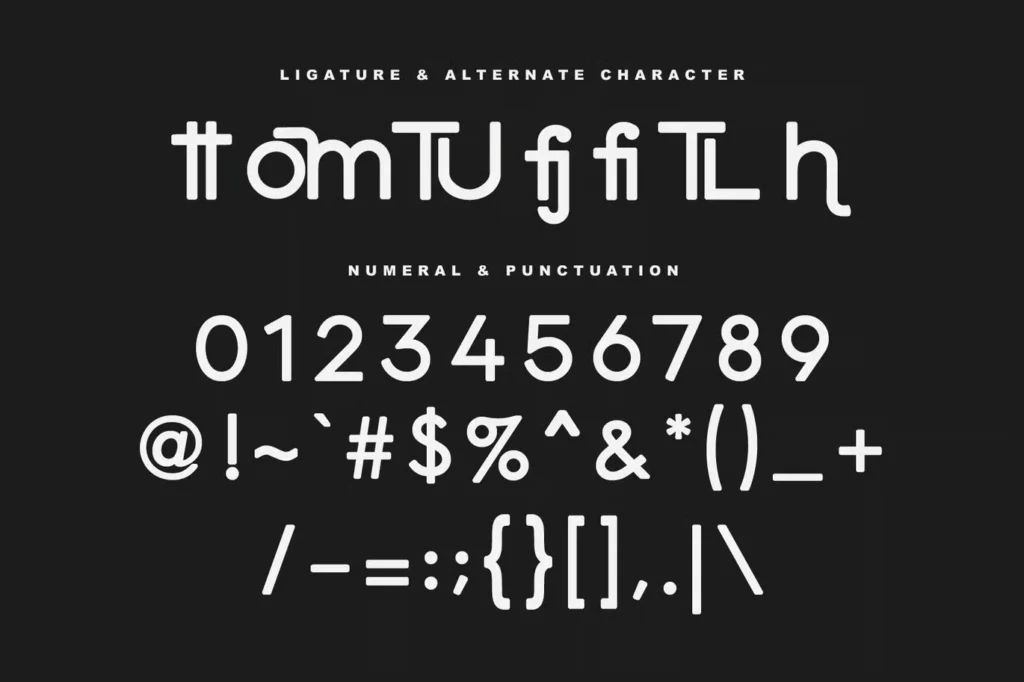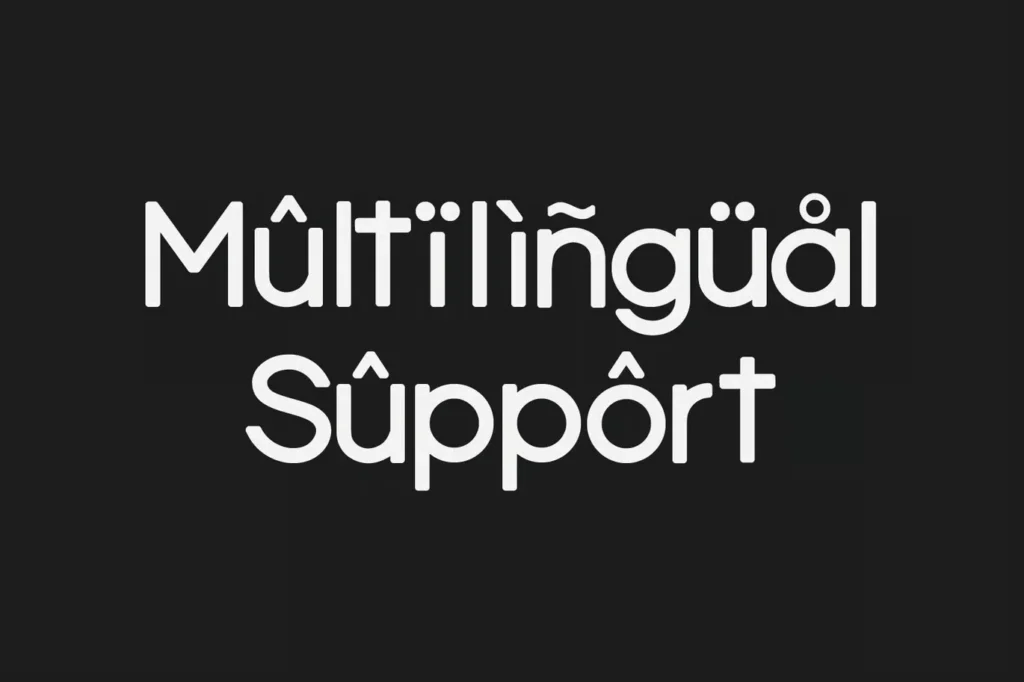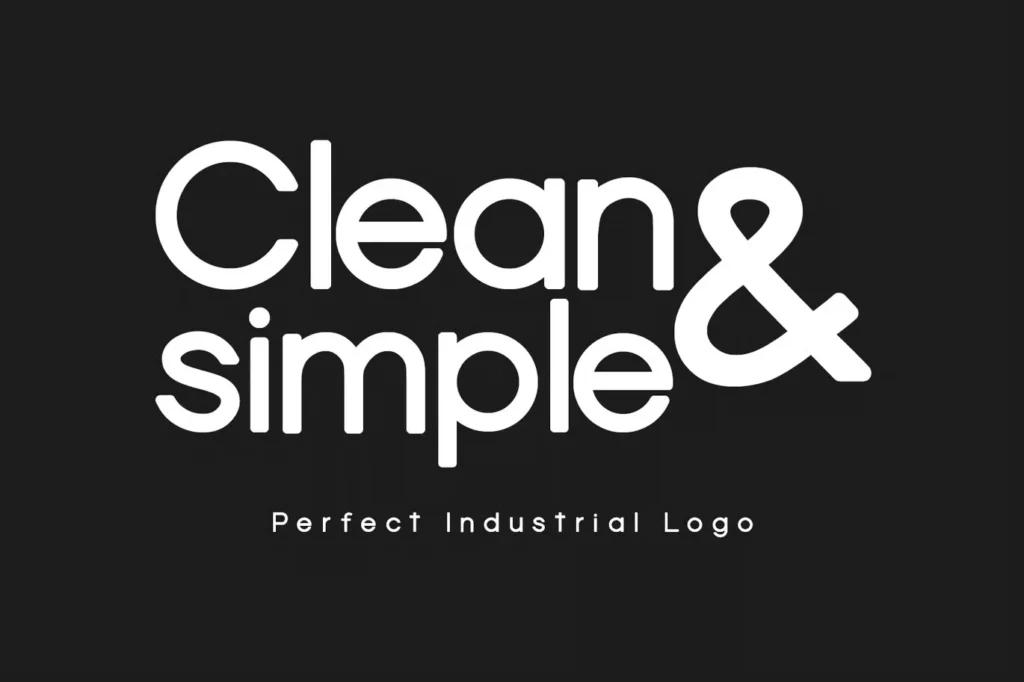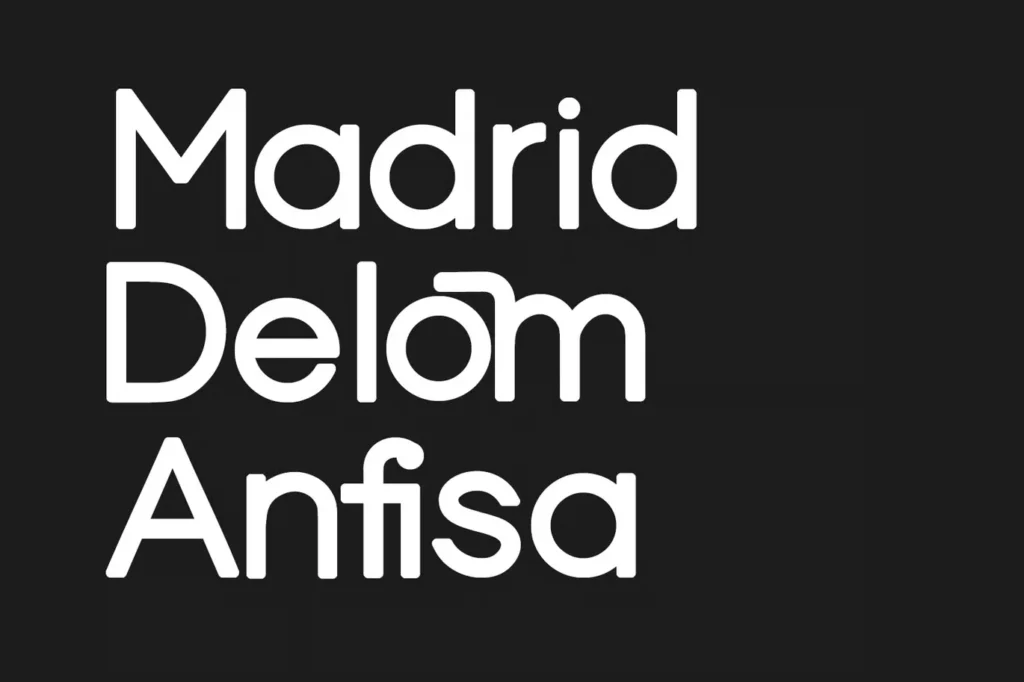
Cingur is a Rounded Sans Serif Font Designed by Maulana Creative
Cingur is a rounded sans serif font with a strong, playful style. The letters have a heavy stroke, but the edges are smooth, giving it a balanced look. It’s bold enough for titles but still readable in longer texts. Maulana Creative, the designer behind it, has a clear eye for making fonts that feel both fresh and functional.
Cingur supports over 100 languages, so it’s ready for global use. It’s also built to handle short or long content, with enough space between letters to keep things clear. The style fits well with minimalist layouts but still brings a creative edge. When you need something reliable yet different, this font delivers.
Features of the Cingur Sans Serif Font
The font has a heavy stroke and clean curves, giving it a powerful presence. It’s not just a bold font. It adds character through bit of ligatures and slightly playful letter shapes, which help you create extra creative work without overdoing it.
Cingur Font is versatile. You can pair it with a script or serif font to build a strong visual contrast. It’s great as a text font or secondary font for supporting type in logos or headings. Whether you need it for a brand tagline or a long paragraph, the spacing and flow stay consistent.
This font feels both modern and personal, which is rare in this category. It fits cleanly into minimalist layouts, but it also stands out when used in more expressive designs. It’s polished, but not stiff. Friendly, but not silly. A solid sans serif font that works in many settings.
You won’t need to tweak much. Just install and start working. The design is strong on its own, and the subtle round edges help soften the overall look. Whether you’re designing for digital, print, or packaging, this font will hold up.
Cingur Font is built for creative use. It works well in logos, brand kits, posters, and content for social media. Its clean look makes it ideal for movie titles, book covers, and even long-form reading like web articles. Whether you’re designing for a tech startup or a lifestyle brand, this font can adapt.
You can also use it for personal projects, from Instagram templates to digital planners. Its versatility means you don’t have to second-guess where it fits. It looks great in headers, strong in buttons, and readable in paragraphs.
Since the font supports over 100 languages, it’s ready for global audiences. That makes it a solid pick for multinational brands or content creators with a wide reach. You can easily mix it with other styles or use it on its own for a bold, modern tone.
It also pairs nicely with script fonts in wedding invites or serif fonts in editorial layouts. If you’re working on clean, minimalist designs, this font holds everything together without stealing the spotlight.